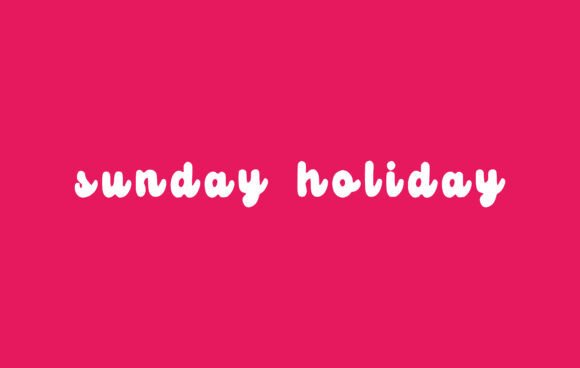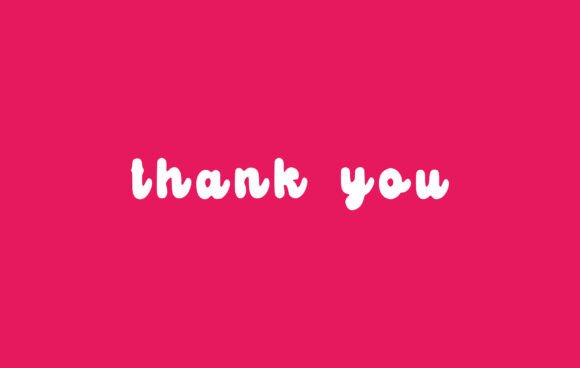
Introduction to Sawback Angel Font
Have you ever stumbled upon a font that instantly sparks your creativity and makes your design ideas come to life? For many designers, this moment of discovery is a game-changer, and the Sawback Angel Font is no exception. With its authentic handwritten touch and romantic flair, this high-quality font has the potential to elevate your creative projects to new heights.
Whether you’re working on a magazine headline, social media campaign, or wedding invitation, the Sawback Angel Font is a versatile design resource that’s sure to impress. Its legibility and charm make it perfect for body text, while its unique style sets it apart as a standout title font. Plus, with a free download available, you can easily incorporate this design treasure into your next project.
Key Features of Sawback Angel Font
- High-quality design resource for creative projects, available for free download
- Unique and intricate design with a transparent background, ideal for various design applications
- Resolution-independent, scalable design, making it suitable for both web and print projects
- Perfect for adding an elegant and mysterious touch to your design, making it a great resource for creative projects
- Designed to be a versatile and high-quality design resource, suitable for various design applications, from logos to typography
Honest Review: Sawback Angel Font
I recently had the chance to work with the Sawback Angel Font and I must say, it’s a great addition to any designer’s toolkit. This high-quality font is a fantastic design resource that can elevate any creative project. One of the standout features of this font is its transparent background, which makes it incredibly versatile and easy to use.
Here are some things that work well with the Sawback Angel Font:
- ✨ Highly customizable: This font can be easily customized to fit any design style or aesthetic.
- ✨ Versatile: With its transparent background, this font can be used on a variety of backgrounds and design elements.
- ✨ High-quality: The Sawback Angel Font is a premium font that looks great on any screen or print material.
However, there are a few limitations to be aware of:
- ⚠️ Limited character set: While the font is highly customizable, it does have a limited character set, which may not be suitable for all design projects.
- ⚠️ Not ideal for small text: Due to its high-quality design, this font may not be the best choice for small text or intricate design elements.
Overall, I’m really impressed with the Sawback Angel Font. It’s a fantastic design resource that can add a touch of elegance and sophistication to any creative project. If you’re looking for a high-quality font with a transparent background, this is definitely worth checking out – especially since it’s free to download!
Tips for Getting the Most Out of Sawback Angel Font
Experiment with different font sizes and colors to achieve a unique visual effect. Combine Sawback Angel Font with other design elements to create a cohesive and engaging design.
Common Use Cases for Sawback Angel Font
Sawback Angel Font is ideal for creative projects, such as branding, logos, and typography-based designs. Its high-quality design makes it a popular choice for designers seeking a unique and eye-catching font.
Can I use the Sawback Angel Font on a transparent background?
Yes, the Sawback Angel Font is designed to work well on a transparent background. This makes it ideal for use in digital media, such as social media graphics, website design, and video titles. You can also use it in print materials, such as business cards and brochures, with a transparent background.